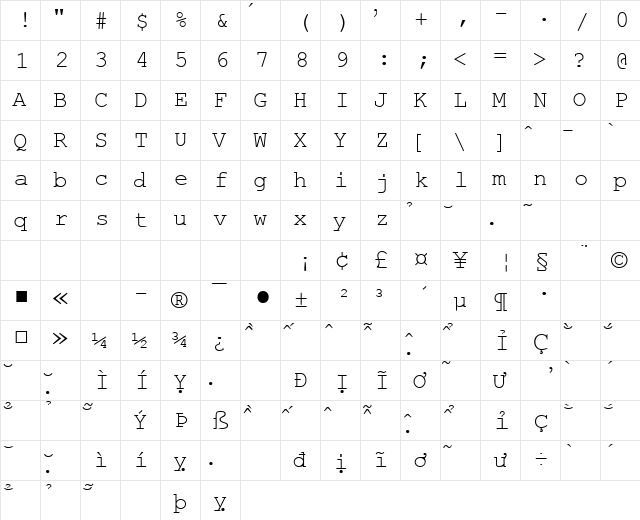
VNI-Internet Mail Normal Font Preview
VNI-Internet Mail Normal
Design Context for VNI-Internet Mail Typeface
VNI-Internet Mail takes a measured approach to typography — its balanced proportions and neutral character make it a reliable workhorse for both digital and print work.